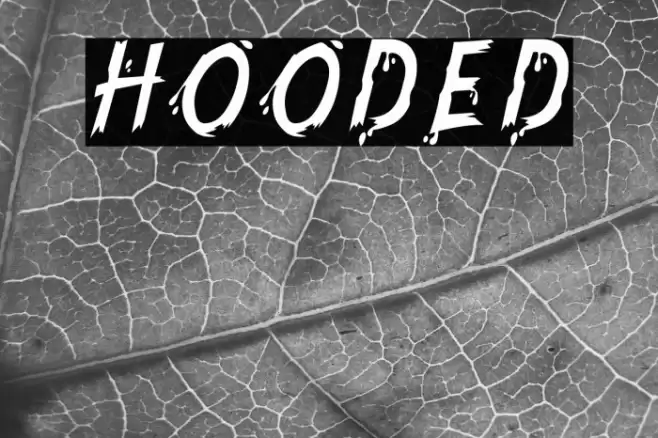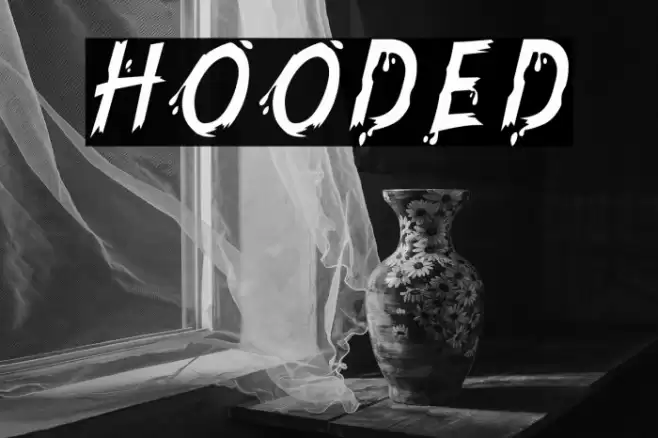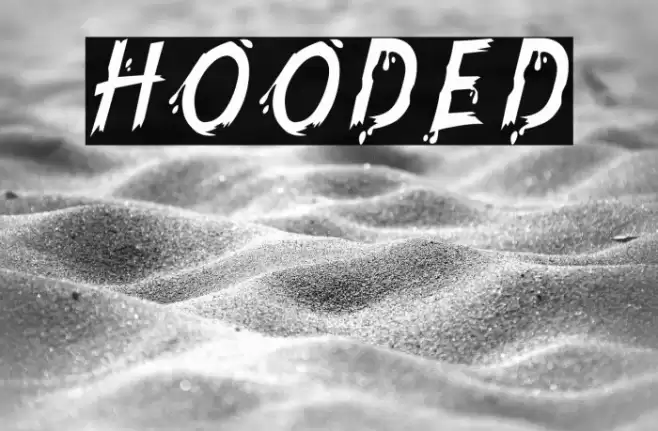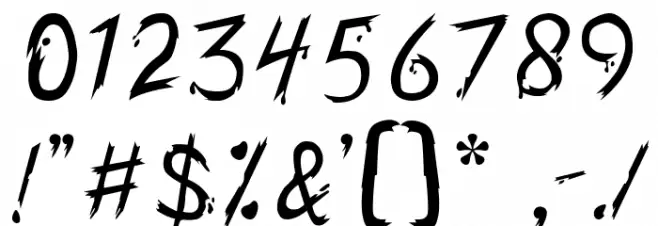
Hooded Font
Hooded Description
This font features a bold, edgy design with a distressed, grunge-like appearance. The characters have sharp, angular strokes with irregular edges, giving them a dynamic and energetic feel. The uppercase and lowercase letters maintain a consistent style, with a slight slant that adds to the font's aggressive and rebellious character. The numerals and special characters follow the same aesthetic, ensuring a cohesive look across all text elements. This font is ideal for projects that require a bold statement or a touch of urban flair.
A bold, edgy font with a distressed, grunge-like appearance from Uncategorized fonts.
- Overall Style: Modern, Grunge